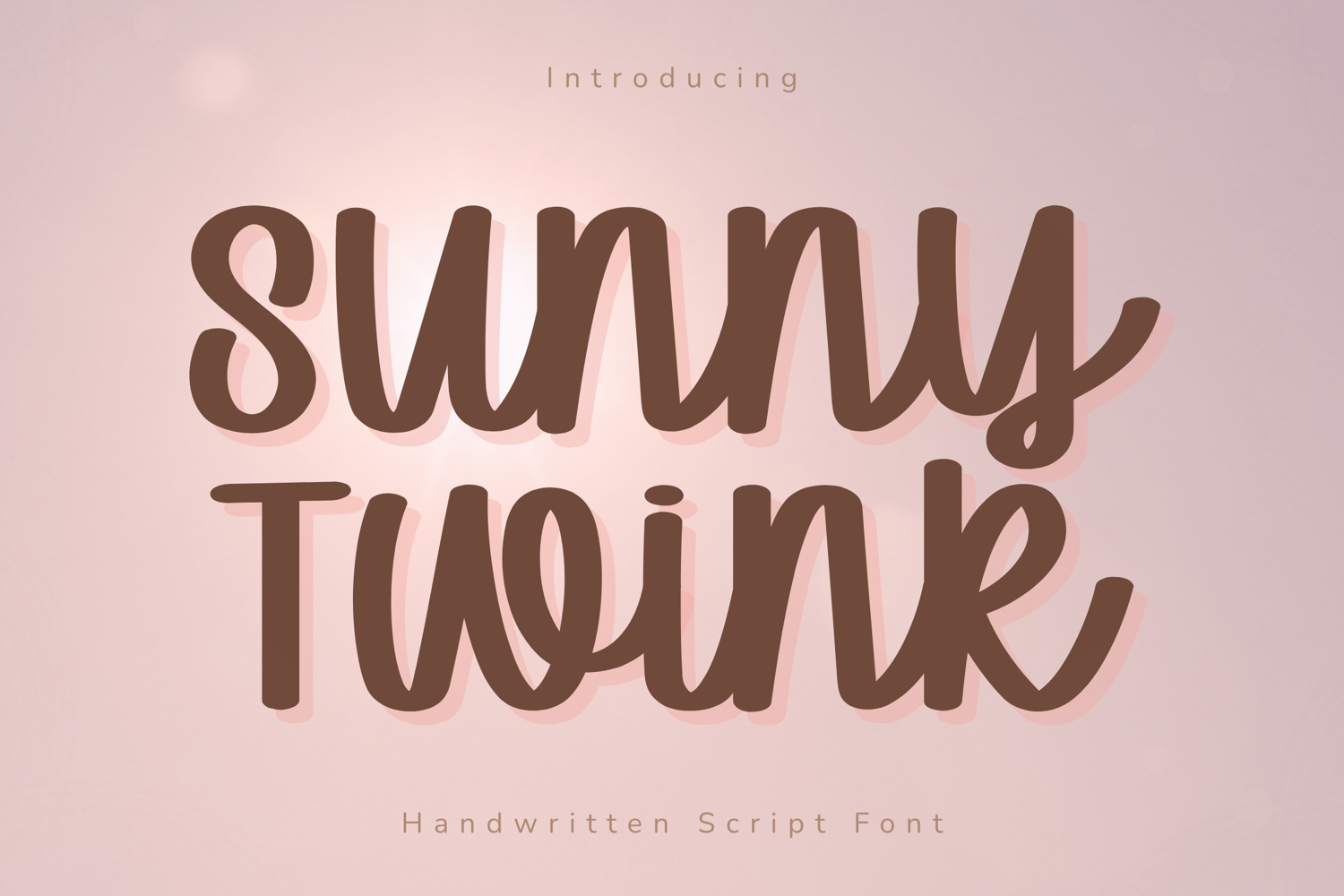
Sunny Twink - Handwritten Script Font
Sunny Twink – Handwritten Script Font
Sunny Twink is a soft and cheerful handwritten script font designed to bring a warm and friendly feel to your creative projects. With its smooth curves and rounded letterforms, this font creates a natural handwritten style while maintaining excellent clarity and readability.
Carefully crafted for versatility, Sunny Twink performs beautifully across a wide range of applications—from Cricut cutting projects to digital planners, branding, and social media design. Its clean and consistent strokes ensure smooth results for both writing and cutting, making it perfect for everyday creative use.
Full set of uppercase and lowercase letters
Numerals, punctuation, and symbols
Sunny Twink is designed with smooth, rounded strokes and balanced spacing, making it easy to use for both beginners and professional designers.